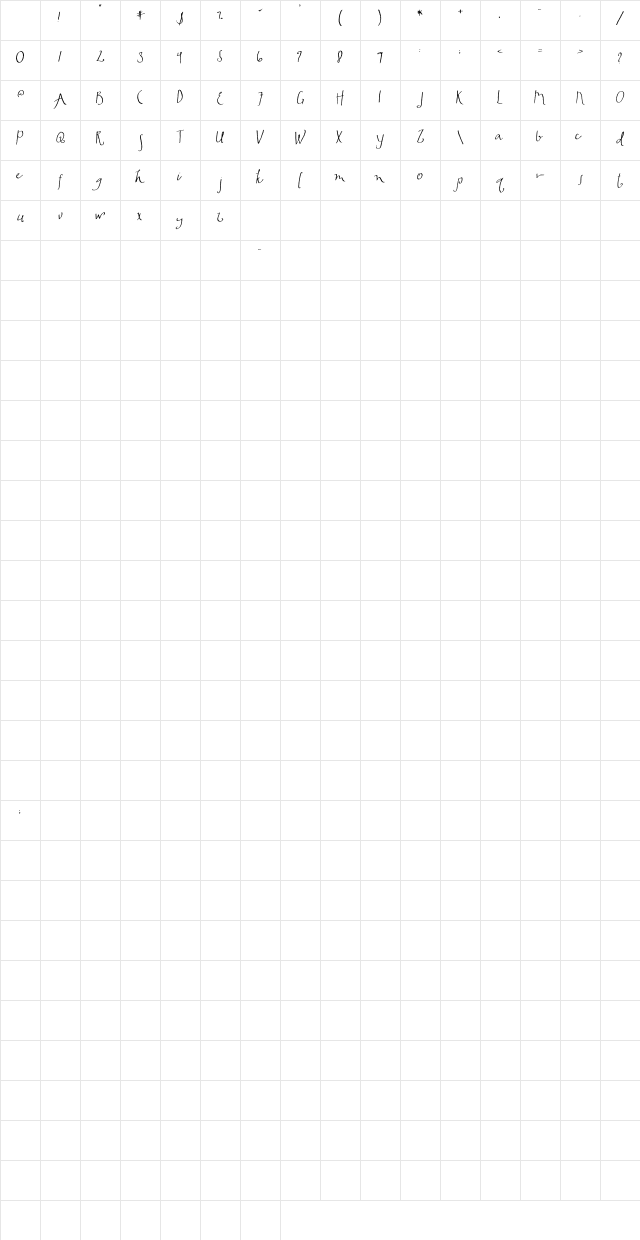
Complete 2Peas Dragonfly 2Peas Dragonfly glyph index. Displaying only characters natively supported by 2Peas Dragonfly font.
2Peas Dragonfly is a composed and adaptable typeface that performs quietly and consistently across a wide range of design contexts.